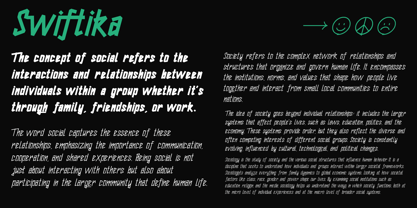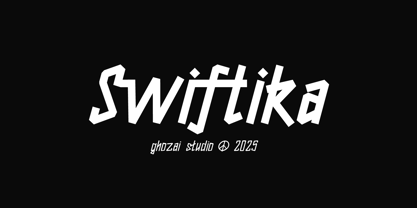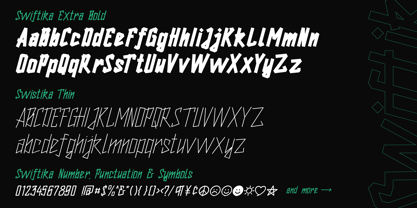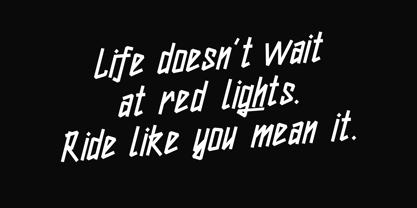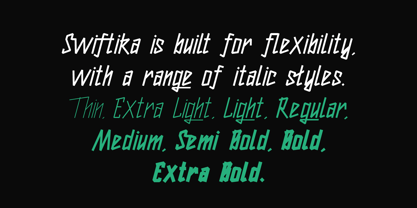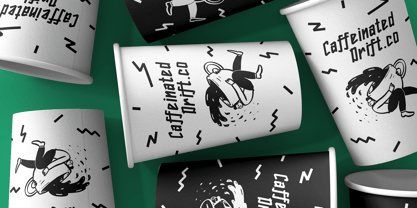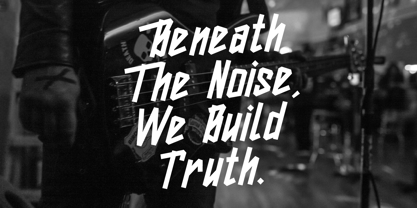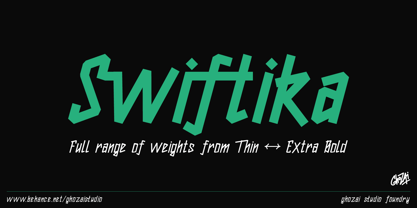
Swiftika
by Ghozai Studio
The Swiftika Font Family was designed by Manzur Ghozaali and published by Ghozai Studio. Swiftika contains 8 styles and family package options. More about this family
Swiftika is an italic font that brings that firm, edgy, bold, and natural handmade vibe to your designs. Swiftika comes in 8 styles from thin to Extra Bold. Featuring a variety of ligatures and alternate stylistic sets, this font creates a natural, handwritten look that adds personality and flair to your designs. Swiftika is the perfect choice when you need a bold and authentic handwritten aesthetic. The versatility of this font makes it suitable for both digital and print media. Perfect for everything from branding, music theme, street, motorcycle theme, and so on. This font adds that just-right touch of personality and charm
Designers: Manzur Ghozaali
Foundry: Ghozai Studio